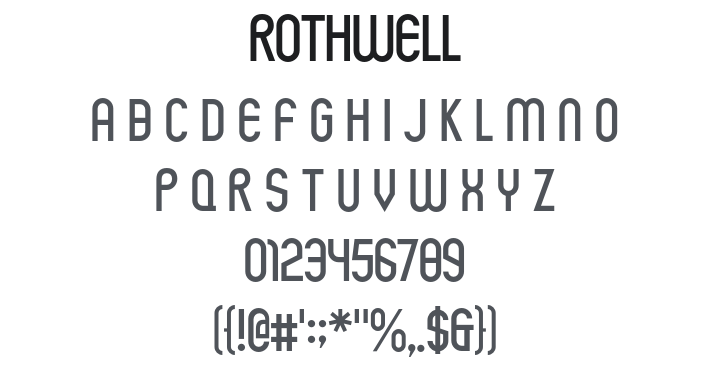
Rothwell Font Family
About Rothwell
Rothwell is a dramatic, astro-militaristic unicase display typeface with stark, modular letterforms and an icy, precise line treatment — every character projects a cold, surreal authority that feels simultaneously retro-futuristic and deeply serious. Available in Regular and Army variants. Perfect for sci-fi military branding, space agency aesthetics, dystopian game titles, cold war-era themed designs, and any headline needing remote, otherworldly gravitas.